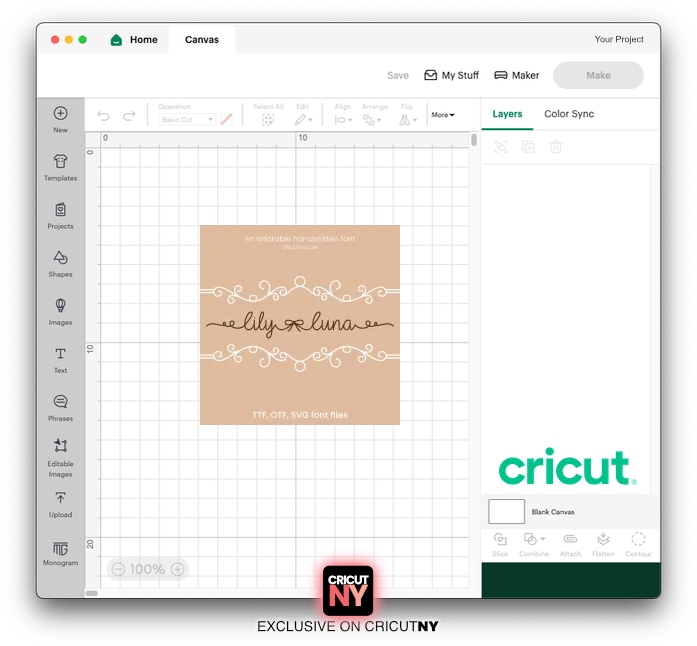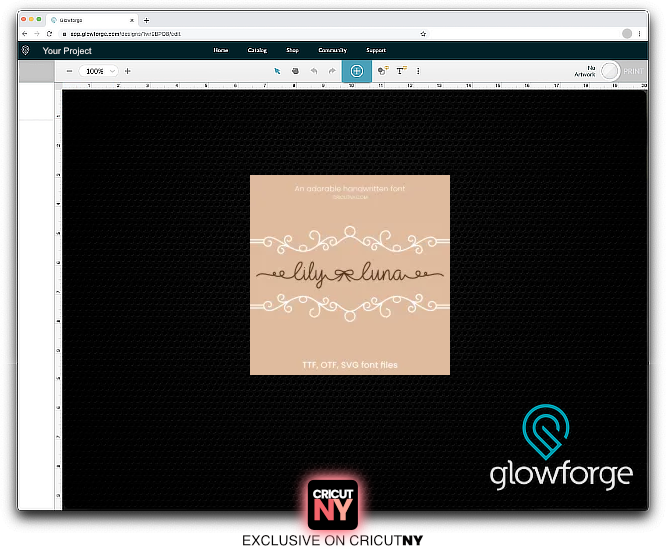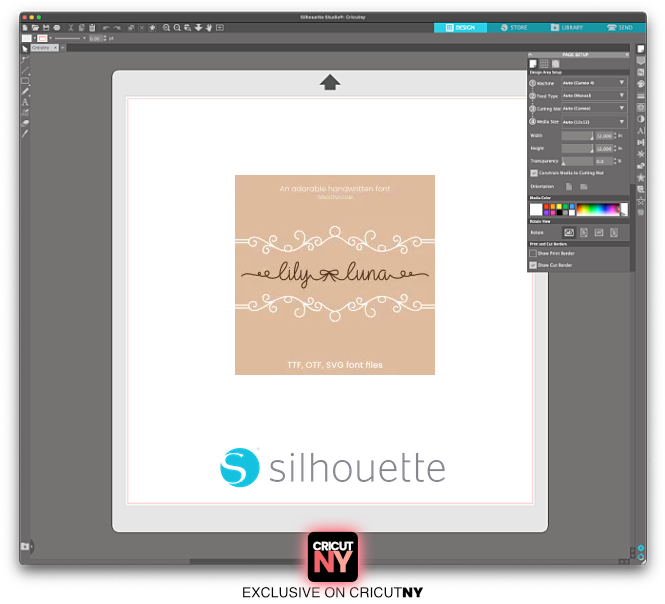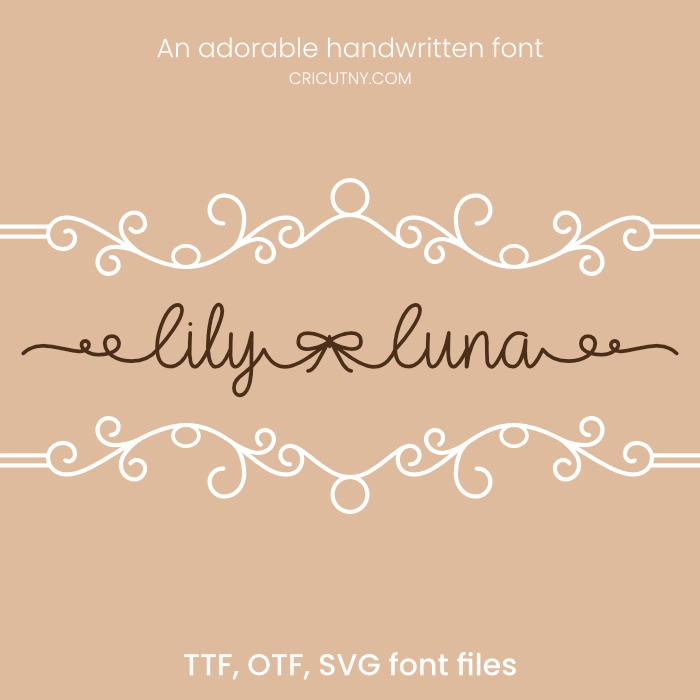
What is the cutest font?
Lily Luna Script font is probably the cutest font with a handwritten font style ever. If you ask me, What is the prettiest handwriting font? I will show you that one!
Creating two names with a little ribbon in the center will make the design extremely cute. The font is fantastic for creating words with names. See the demo in the image gallery. That’s a pretty handwriting font.
The font comes with multiple long tails and ribbons. If you ask me, Is there a font that looks like handwriting? If you plan to create a design for the parents, moms and kids-related audience, I will show you that one.